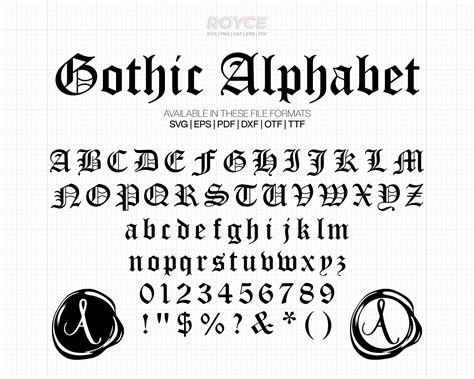
Goth Font Copy And Paste. Web use this unicode text tool to generate fraktur style black letter text that can be copied and pasted into social media platforms, such. Web instafonts.io lets you create or edit goth fonts from normal text and copy them to social media platforms.
Web instafonts.io lets you create or edit goth fonts from normal text and copy them to social media platforms. Web use this unicode text tool to generate fraktur style black letter text that can be copied and pasted into social media platforms, such.
Web use this unicode text tool to generate fraktur style black letter text that can be copied and pasted into social media platforms, such. Web instafonts.io lets you create or edit goth fonts from normal text and copy them to social media platforms. Web use this unicode text tool to generate fraktur style black letter text that can be copied and pasted into social media platforms, such.